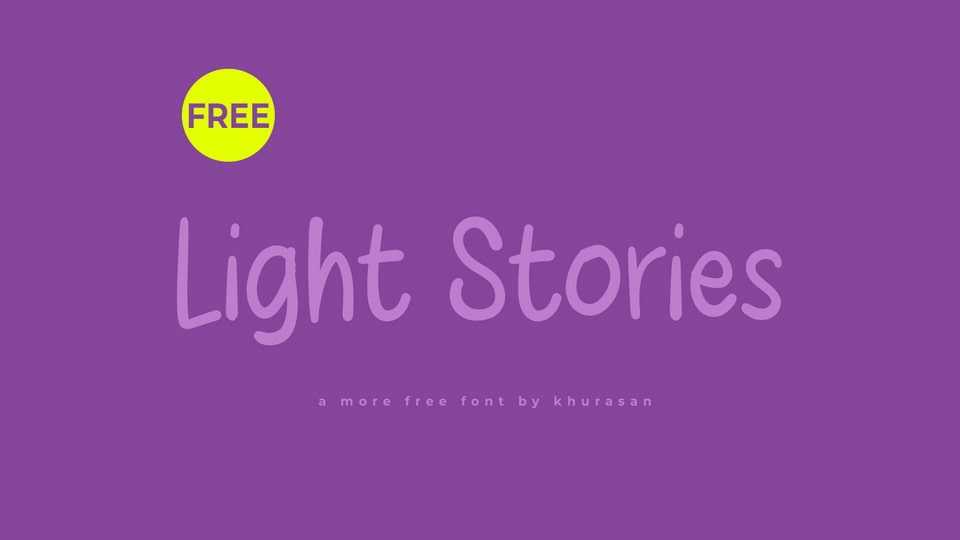
Download Light Stories font, a casual and organic hand-drawn comic typeface that brings a touch of spontaneity and charm to your designs. Light Stories font is crafted with playful strokes and whimsical details, capturing the essence of a doodle brought to life.